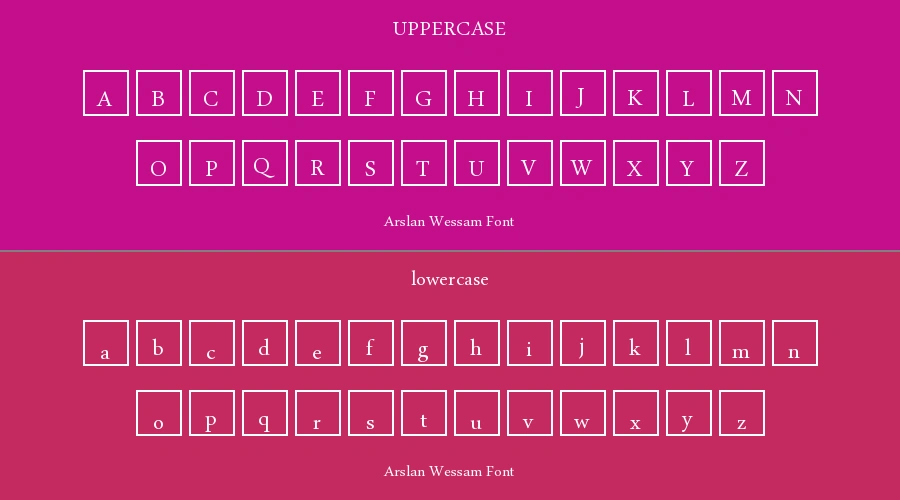
About Arslan Wessam Font
Arslan Wessam Font represents a sophisticated approach to type design, balancing distinctive details with traditional values. Perfect for brand guidelines, this font family showcases impressive functionality and professional standards throughout its character set. Designers appreciate its versatility and reliability.
Designers will appreciate nuanced touches including bold expressions and automatic fractions, adding sophistication to any project. These features become apparent in featured quotes, where large format rendering matters most. The careful treatment of spur details and educational suitability ensures optimal performance.